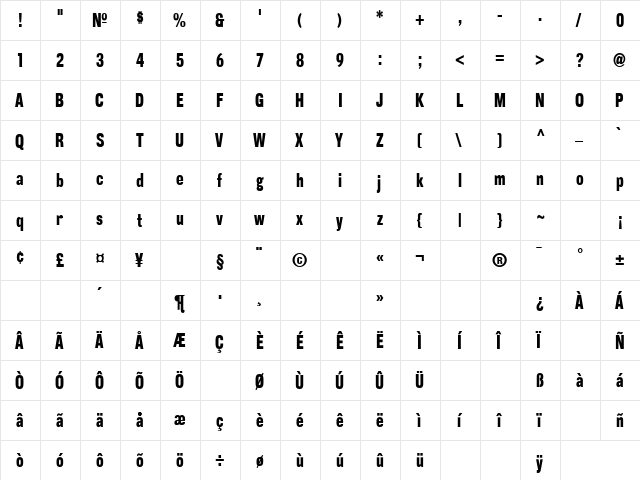
CorpusGothic Condensed
Design Context for CorpusGothic Typeface
CorpusGothic takes a clean, functional approach — its unadorned letterforms prioritise legibility and work reliably across screen and print environments. Its narrow stance lets it pack a punch even in space-constrained designs.
Font Pairing: Works well alongside a characterful serif or display font that can carry the expressive load while CorpusGothic handles the functional copy.
Pro Tip: Try CorpusGothic in all-caps with moderate tracking for navigation and label copy — it performs well in systematic UI contexts.